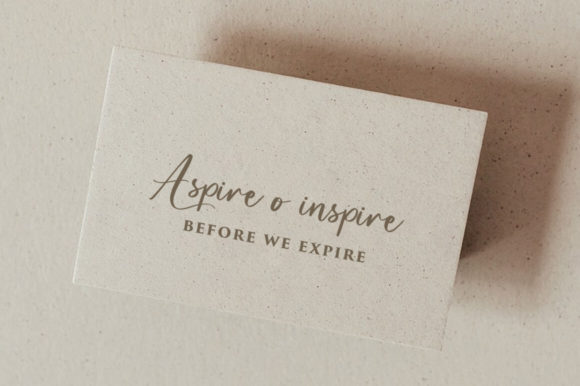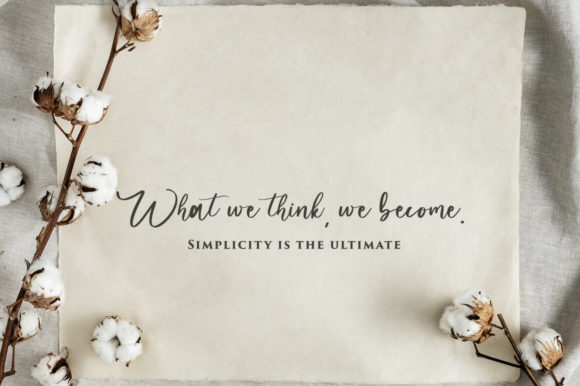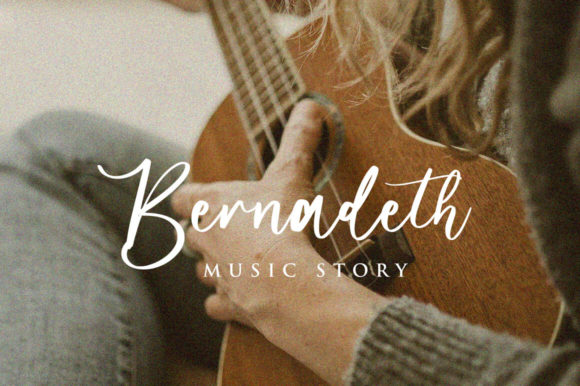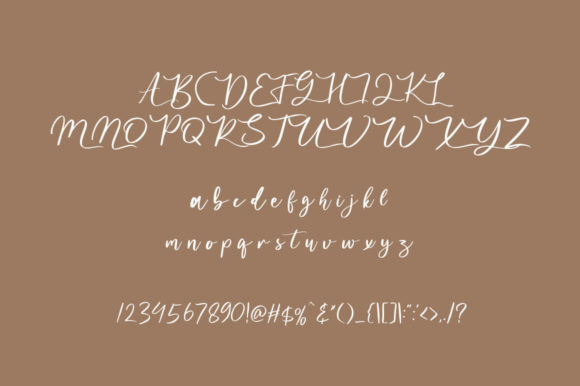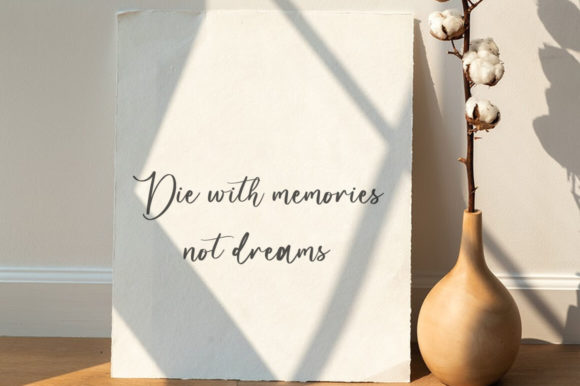
A New Era of Handwritten Elegance: Aulores Font
Have you ever found yourself scribbling down ideas in a notebook, only to realize that your handwriting has become the most beautiful part of your design concept? That’s exactly what happened to me when I stumbled upon the Aulores Font. Its effortless charm and sophistication immediately captured my attention, and I knew I had to share it with fellow designers.
Aulores Font is a stylish and beautiful handwritten font designed to elevate your design projects. Whether you’re working on a personal branding project or creating a wedding invitation, this font is sure to add a touch of elegance and sophistication. As a designer, you understand the importance of choosing the right font to convey your message and evoke the desired emotions. Aulores Font is a valuable addition to your design toolkit, offering a unique blend of relaxation and sophistication that will take your designs to the next level.
- Unique Characteristics: The font features a unique blend of modern and classic elements, with elegant curves and geometric shapes, making it suitable for various design projects.
Aulores Font Review
Overall, I think Aulores Font is a decent choice for designers, but it’s not without its quirks. Let’s dive into what works well and what doesn’t.
- ✨ Elegant and refined aesthetic: Aulores Font has a beautiful, flowing feel to it that’s perfect for luxury or high-end branding.
- ✨ Good legibility: The font is easy to read, even at smaller sizes, making it a great choice for body text or long blocks of copy.
- ✨ Versatile: Aulores Font comes in a range of weights and styles, making it suitable for everything from headlines to footers.
- ⚠️ Limited character set: While the font is beautiful, it’s only available in a limited set of languages, which might be a problem for global brands.
- ⚠️ Not ideal for bold or dramatic uses: Aulores Font is a subtle font that works best in more understated contexts. If you need a font that can make a bold statement, you might want to look elsewhere.
Overall, I think Aulores Font is a solid choice for designers who need a refined, elegant font. However, it’s not the best option for every project, and you’ll need to consider its limitations carefully before committing to it.
Aulores Font is ideal for:
- Designing elegant and sophisticated logos.
- Creating visually appealing typography for websites and marketing materials.
- Adding a touch of luxury and sophistication to presentations and documents.
Aulores Font supports a wide range of languages, including Latin, Cyrillic, and Greek scripts. The font includes over 600 glyphs, covering a broad range of characters and symbols. For specific language support and character set details, please refer to the font’s documentation or contact the developer.